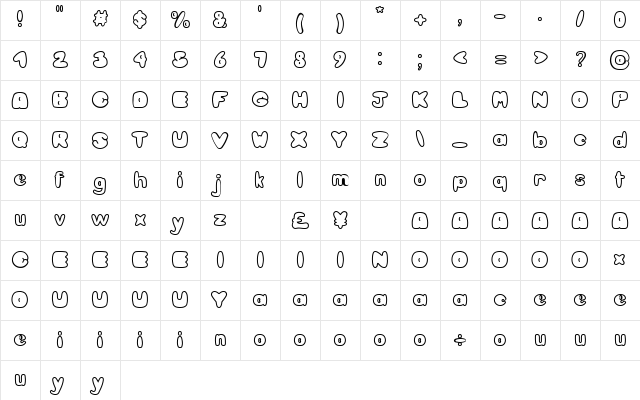
Cookies Lover Empty Regular
| Foundry | True candy lover |
| Designer | Marika Sartori |
Design Context for Cookies Lover Empty Typeface
Cookies Lover Empty is a composed and adaptable typeface that performs quietly and consistently across a wide range of design contexts.